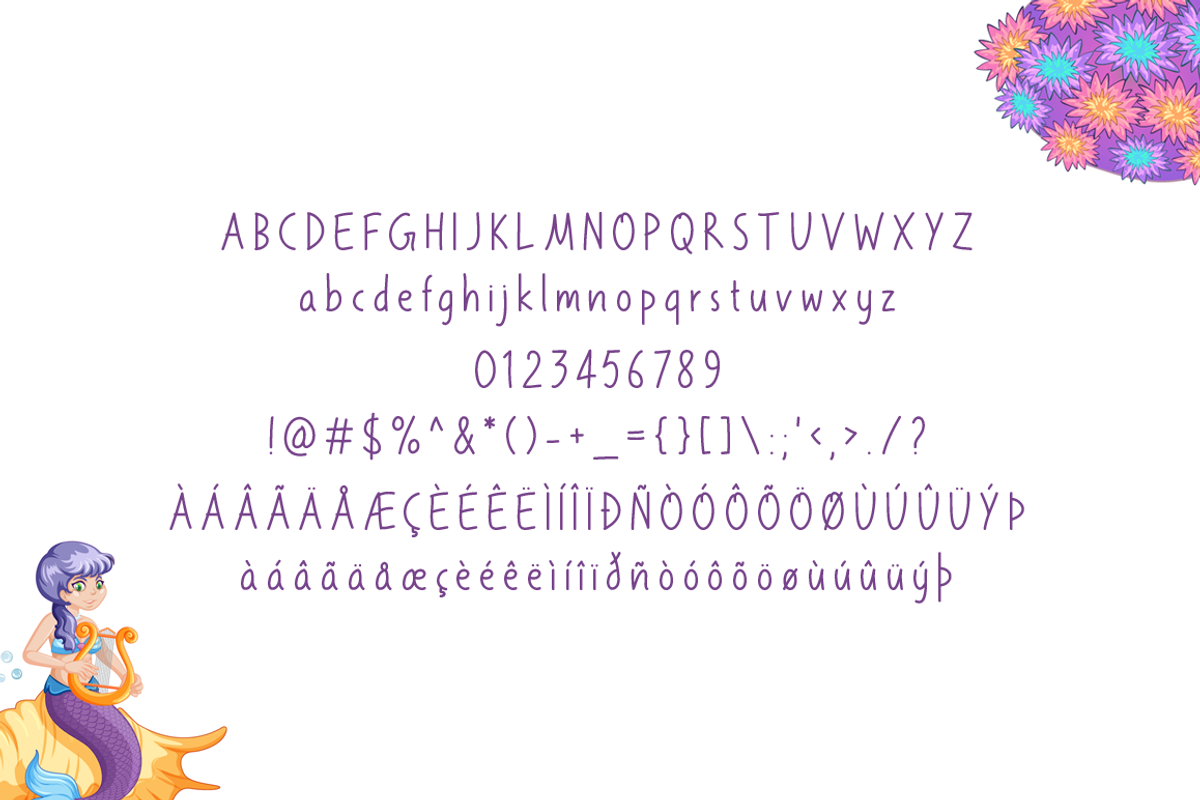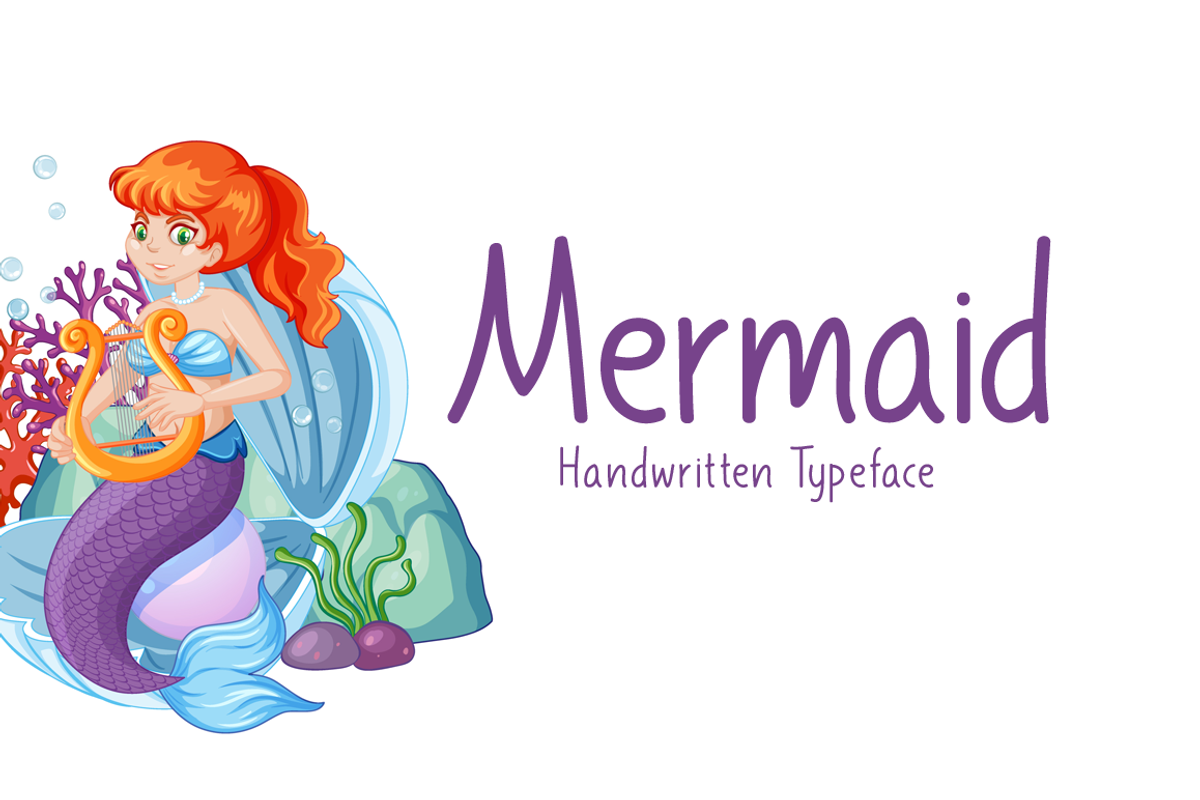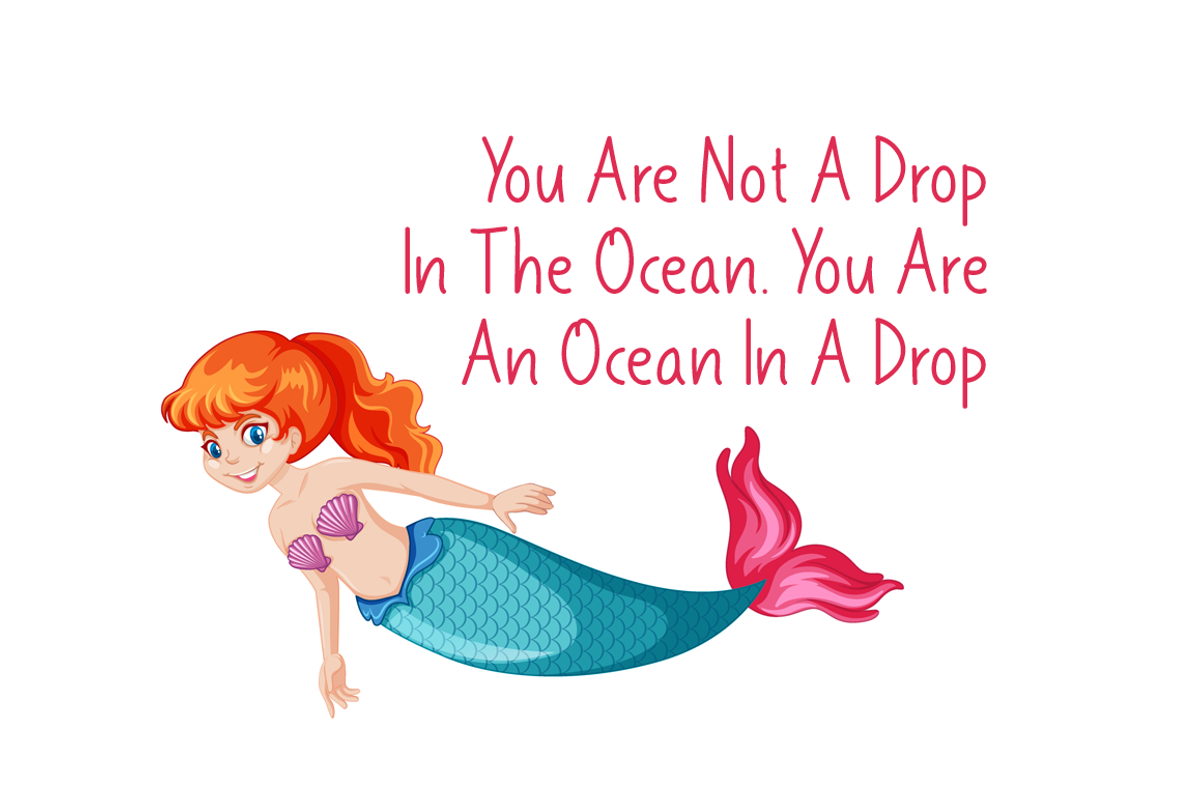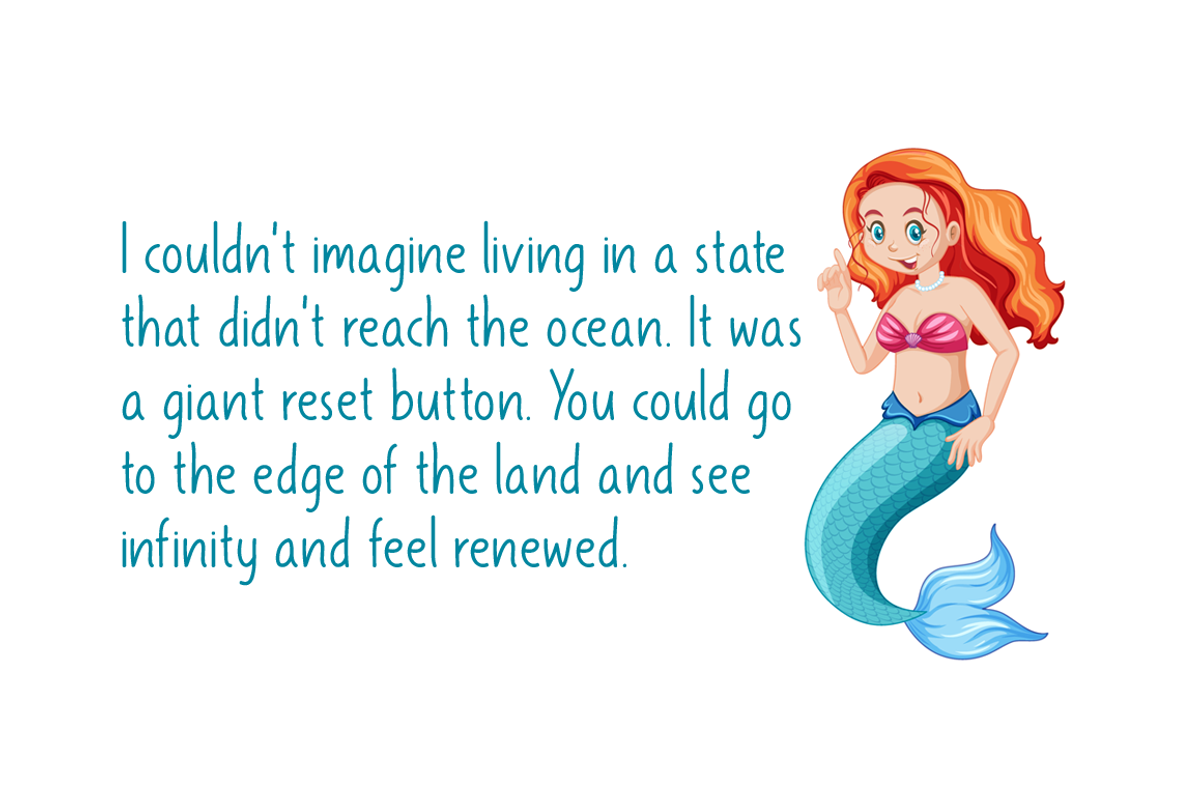
Mermaid Typeface
Introducing Mermaid!
Mermaid is a brand new handwritten font. Mermaid is perfectly suited for stationery, logos, t-shirt, paper, print design, website header, photo frame, flyer, music cover, poster, image slider, and much more.
Includes a range of multilingual support